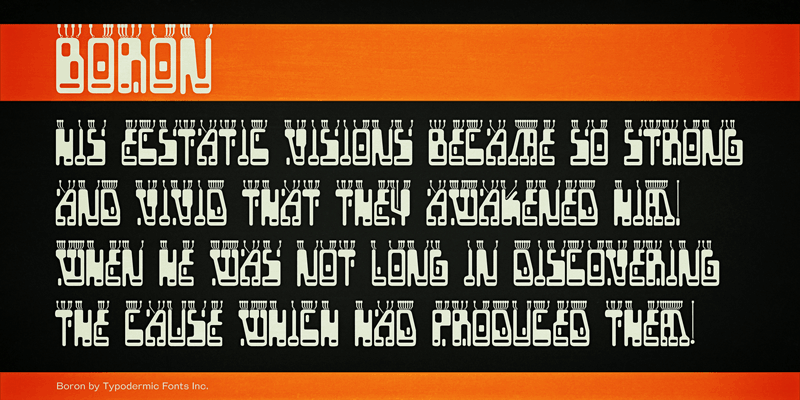
Font name: | Boron |
Boron is a MICR inspired retro tech font with conductive pathways. This font includes a license that allows free commercial use: sometimes referred to as a desktop license. This allows you to install the font on a computer and use it to create posters, web graphics, game graphics, t-shirts, videos, signs, logos and more. Read the license agreement for details. If you'd like to embed this font in an app, ebook, on the web or anything that's not covered by the desktop license agreement, visit the link below. You'll find distributors who offer different types of licenses or you can contact me for help. http://typodermicfonts.com/boron/ |